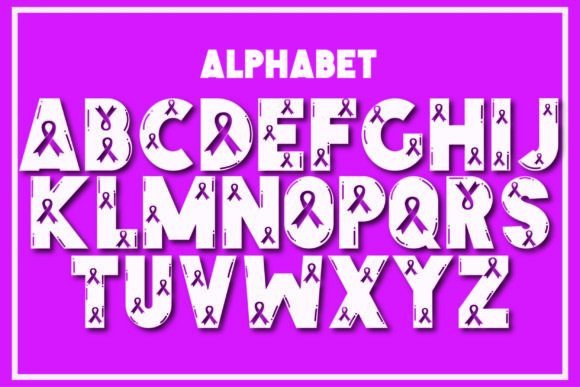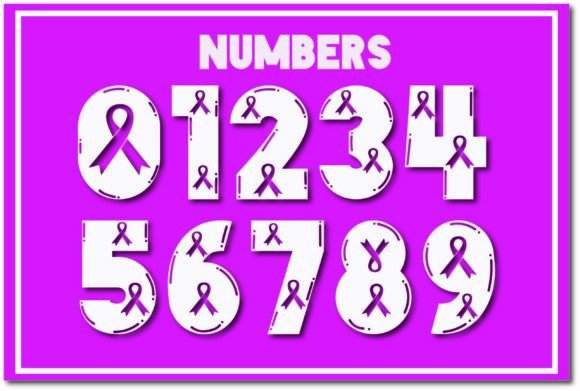
Cancer Font: Elevate Your Designs with a Chic and Assertive Typeface
Are you tired of using the same old fonts in your designs? Look no further than the Cancer Font, a stylish and confident decorative font that’s sure to take your projects to the next level. With its unique blend of elegance and assertiveness, Cancer Font is the perfect choice for designers and crafters looking to add a touch of sophistication to their work.
What is Cancer Font?
Cancer Font is a decorative font designed to make a statement. Its chic and assertive style makes it perfect for a wide range of projects, from fashion and beauty designs to marketing materials and branding. Whether you’re looking to create a bold and eye-catching headline or a elegant and refined body of text, Cancer Font is the perfect choice.
Key Features of Cancer Font
- Unique and stylish design: Cancer Font boasts a distinctive and stylish design that’s sure to set your projects apart from the crowd.
- Assertive and confident: With its bold and assertive style, Cancer Font is perfect for designers and crafters looking to make a statement.
- Elegant and refined: Despite its bold style, Cancer Font is also elegant and refined, making it perfect for a wide range of projects.
- Easy to read: Despite its decorative style, Cancer Font is easy to read, making it perfect for both headlines and body text.
How to Use Cancer Font in Your Designs
Using Cancer Font in your designs is easy. Here are a few tips to get you started:
- Pair it with a neutral font: Pair Cancer Font with a neutral font, such as Arial or Helvetica, to create a striking contrast.
- Use it for headlines: Cancer Font is perfect for headlines, where its bold and assertive style can really make an impact.
- Experiment with different colors: Cancer Font looks great in a wide range of colors, so don’t be afraid to experiment and find the perfect shade for your project.
Benefits of Using Cancer Font
There are many benefits to using Cancer Font in your designs. Here are just a few:
- Adds a touch of sophistication: Cancer Font adds a touch of sophistication and elegance to any project.
- Helps you stand out: With its unique and stylish design, Cancer Font can help your projects stand out from the crowd.
- Perfect for branding: Cancer Font is perfect for branding projects, where its bold and assertive style can help create a lasting impression.
Who Can Use Cancer Font?
Cancer Font is perfect for a wide range of designers and crafters, including:
- Graphic designers: Graphic designers can use Cancer Font to add a touch of sophistication to their designs.
- Crafters: Crafters can use Cancer Font to create beautiful and eye-catching projects, such as handmade cards and invitations.
- Marketers: Marketers can use Cancer Font to create bold and eye-catching marketing materials, such as brochures and flyers.
| Font Name | Cancer Font |
| Author | CHEETAH DOODLE |
In conclusion, Cancer Font is a chic and assertive decorative font that’s perfect for designers and crafters looking to add a touch of sophistication to their projects. With its unique and stylish design, Cancer Font is sure to make a lasting impression. So why wait? Add Cancer Font to your projects today and see the difference for yourself.